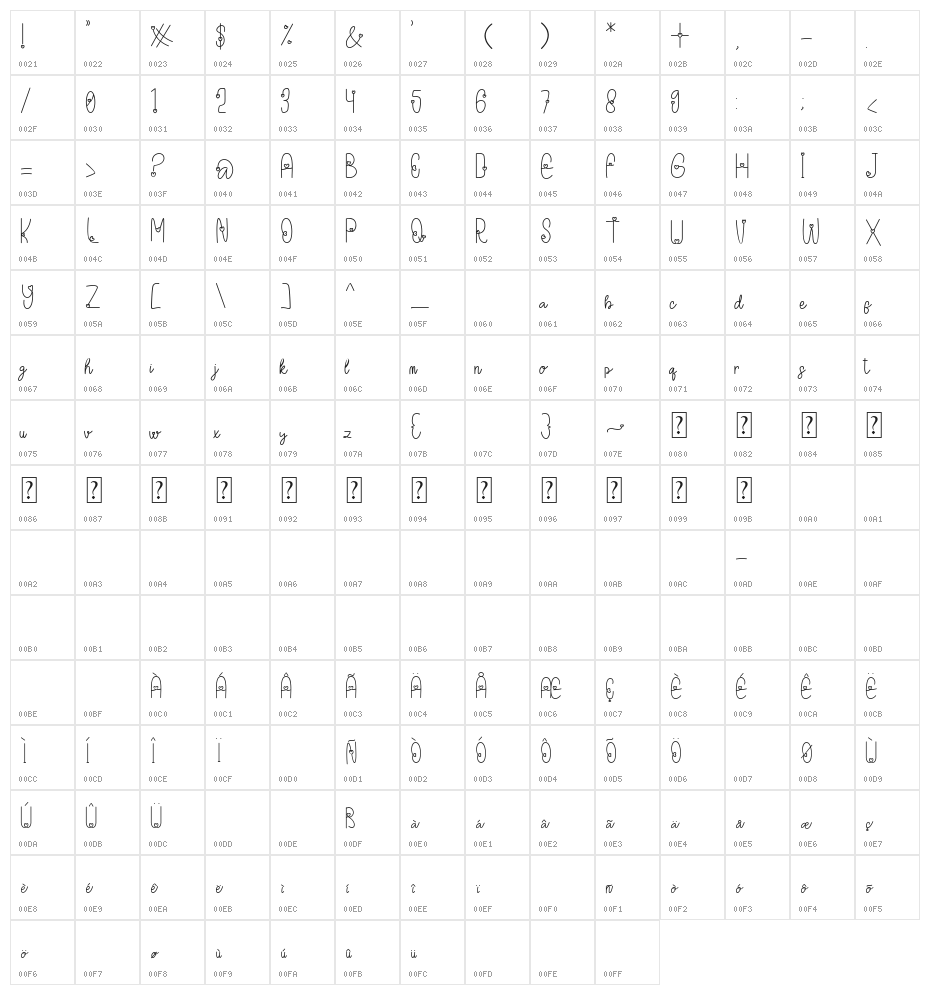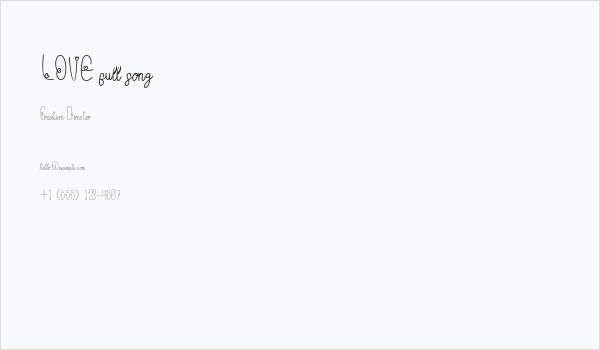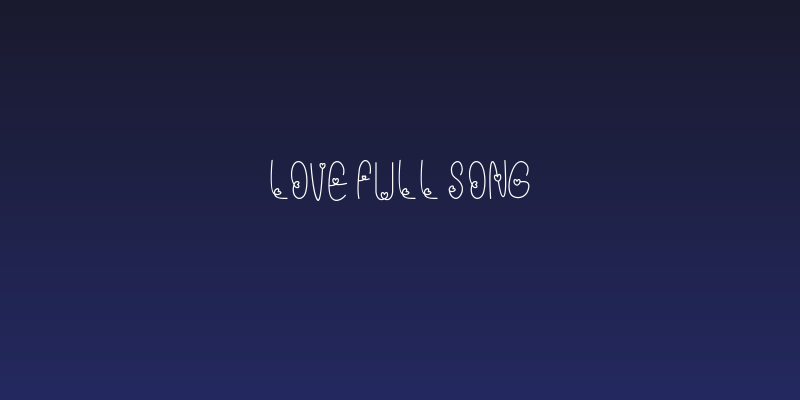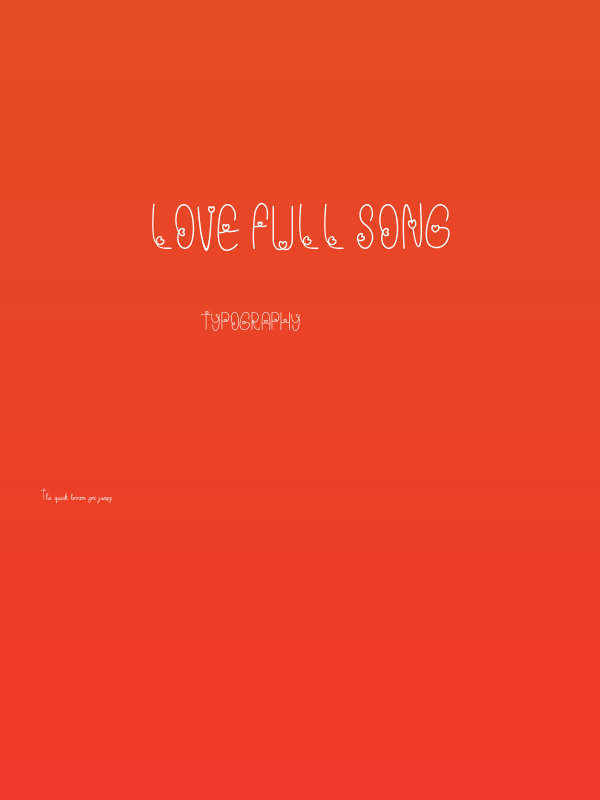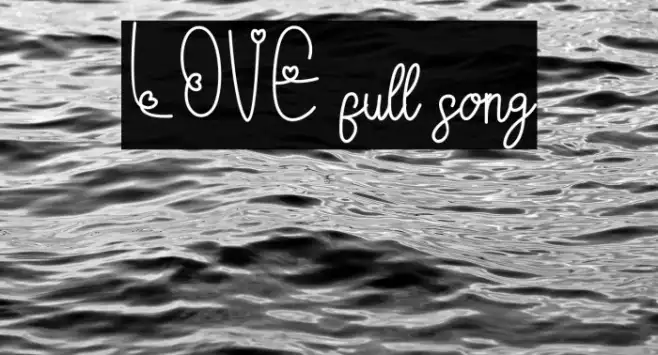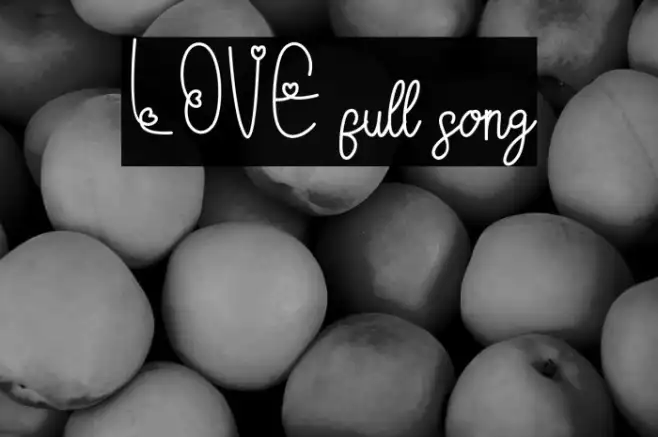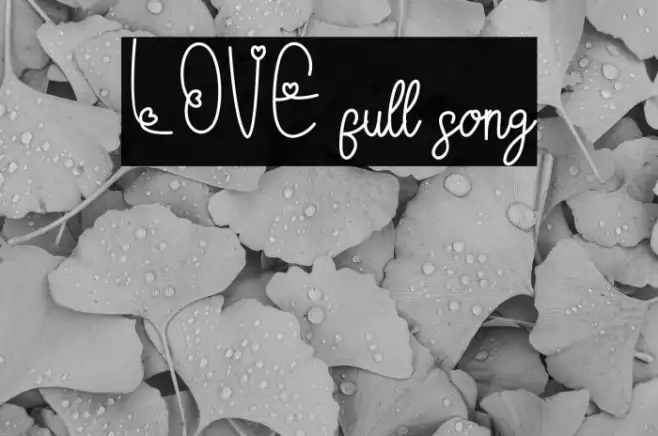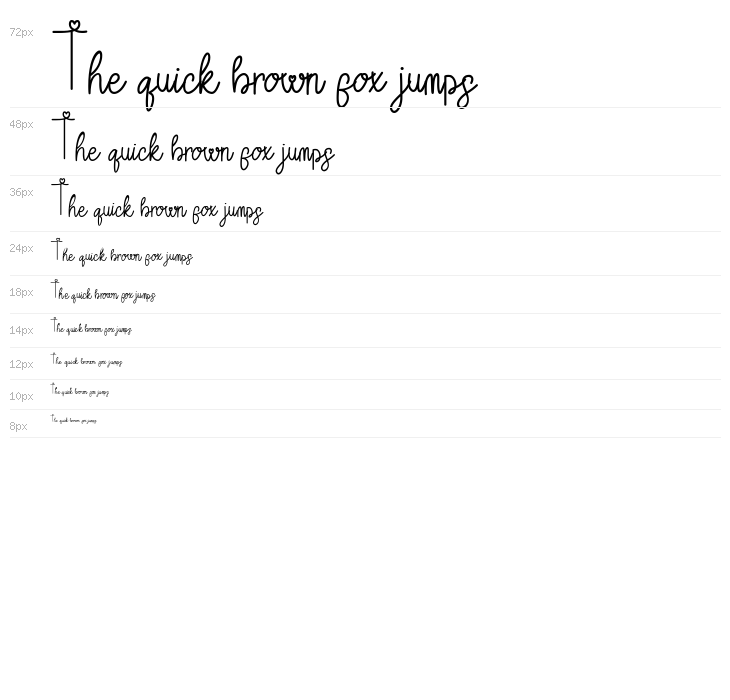
LOVE full song Font
LOVE full song Description
This whimsical and playful font features a unique design where each letter is adorned with heart motifs, creating a charming and romantic feel. The uppercase letters are tall and slender, with delicate curves and loops that integrate small hearts seamlessly into the structure. The lowercase letters maintain a similar style, offering a cohesive look across the alphabet. Numbers and special characters also incorporate the heart theme, ensuring consistency throughout the font. The overall design is light and airy, making it ideal for projects that require a touch of elegance and affection.
LOVE-FULL-SONG UPPERCASE
LOVE-FULL-SONG LOWERCASE
LOVE-FULL-SONG OTHER CHARS
| Overall Style | Romantic, Playful |
| Use Case | Headlines, Invitations, Greeting Cards |
| Proposed Projects | Perfect for wedding invitations, Valentine's Day cards, romantic event branding, and love-themed merchandise. |